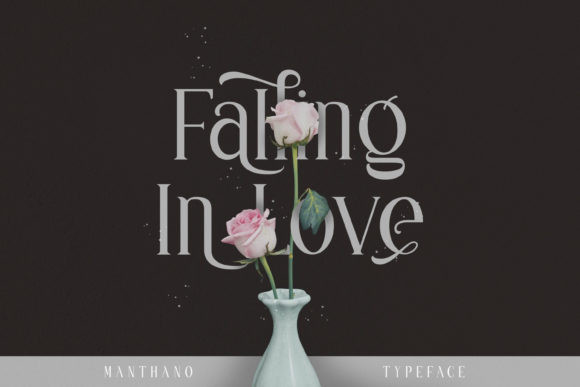
Manthano Font
Manthano FontManthano is an elegant and modern serif font that’ll engage your audience and make your branding stand out.
This stylish font can be used in a host and different content and projects.
Perfect for social media branding projects, fashion design, printed quotes, or even as a stylish text overlay to any background image and many more.